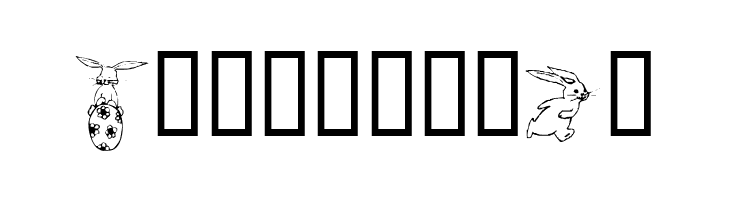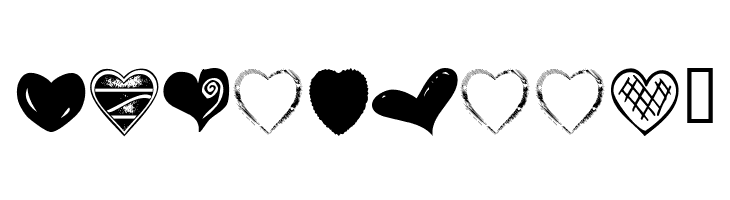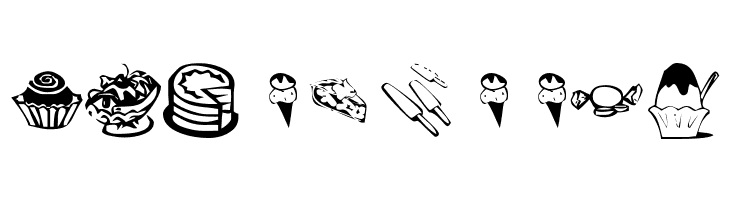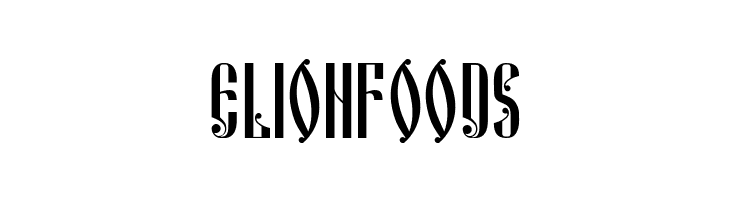
• KR Five Bunnies
A whimsical set of bunny illustrations in various playful poses.
• KR Happy Birthday Julie
Ornate pictorial dingbat font with floral and animal motifs.
• KR More Holidays
A decorative font with playful holiday-themed icons.
• KR Rachel's Elephants
Elephant-themed decorative dingbat font with assorted illustrations.
• KR Heartalicious
A diverse set of heart designs ranging from simple outlines to intricate patterns.
• KR Katlings Five
Hand-drawn pictogram dingbat font with playful illustrations.
• KR Kat's Flowers
Ornamental floral dingbat font with diverse flower motifs.
• KR Sweet Tooth
A whimsical decorative font featuring sweet treat illustrations.
• KR Silly Art Holiday
A playful decorative font with holiday-themed illustrations.
• Russian Land